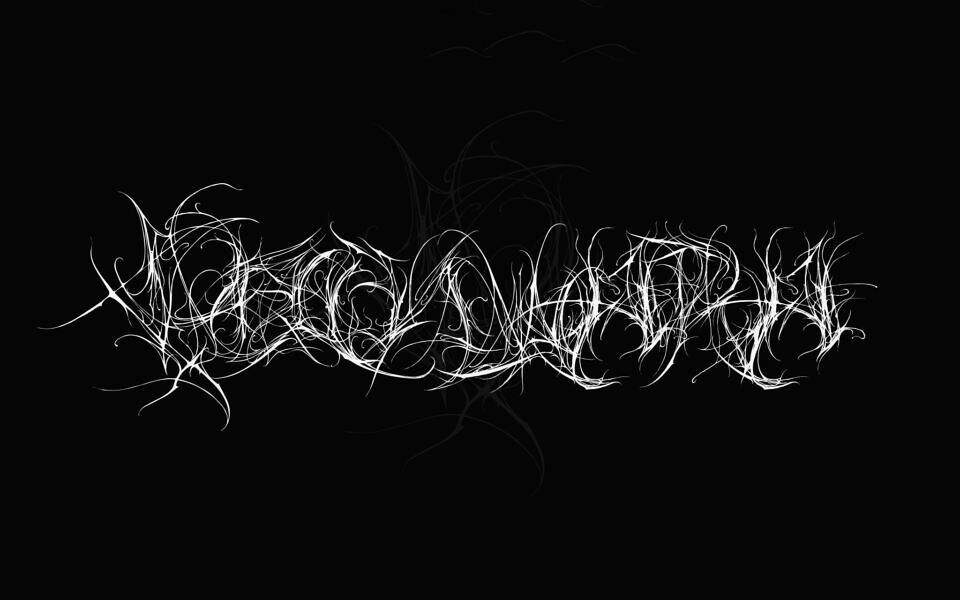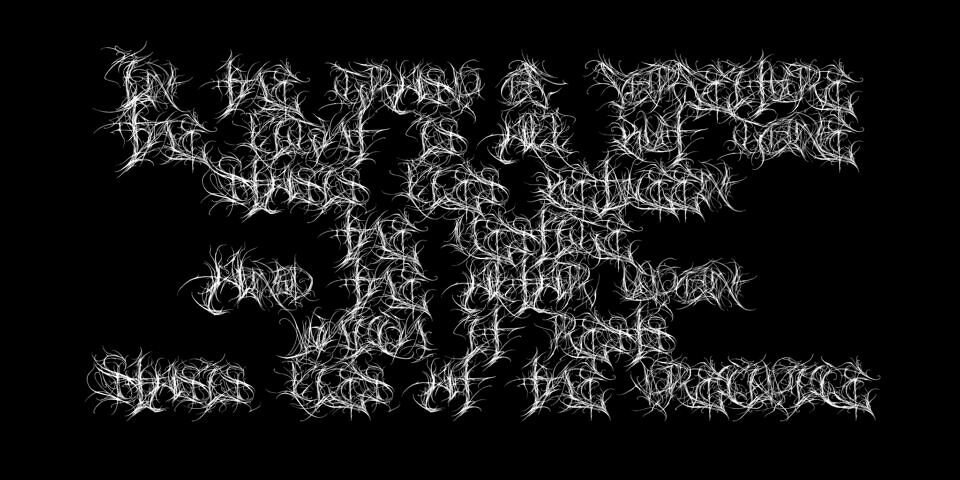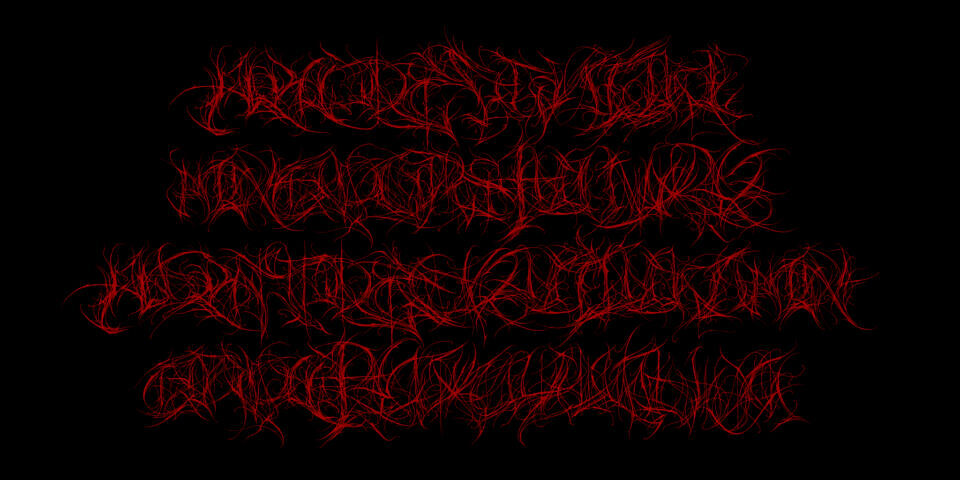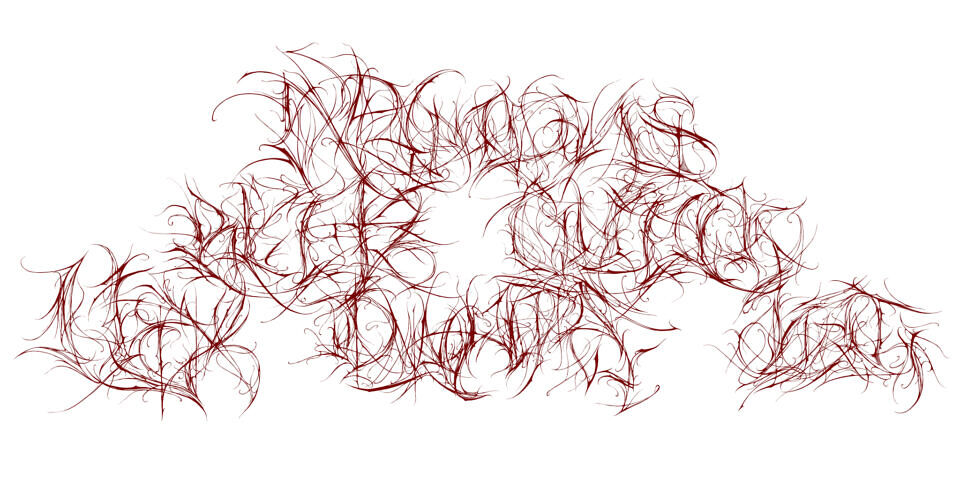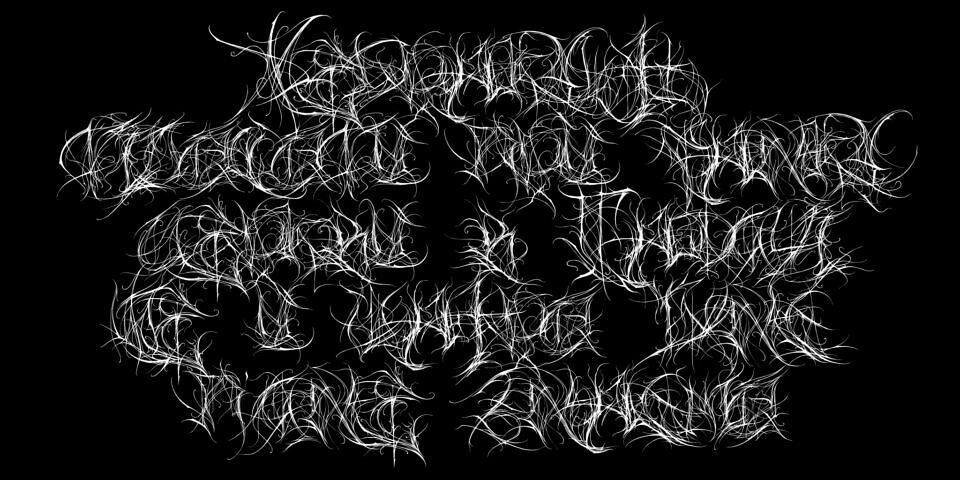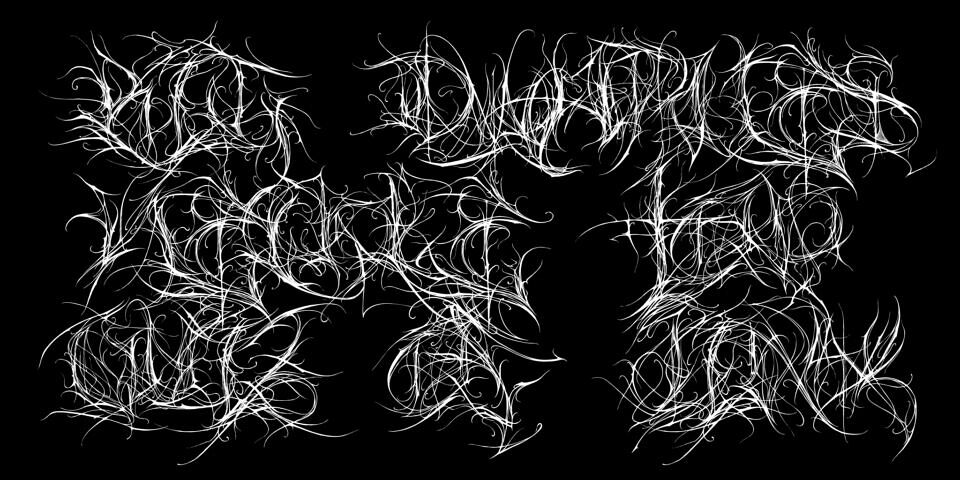
Pochwara Font is a fierce, complex black metal typeface that radiates untamed intensity. Featuring jagged edges, interwoven thorns, and sharp, spiked embellishments, it overwhelms the senses with a chaotic energy.
Designed not for ease of reading but for emotional impact, each character seems to pulse with raw, rebellious force. Pochwara is ideal for audacious, anarchic designs like concert posters, album covers or even tattoos, delivering a bold, striking visual assault.